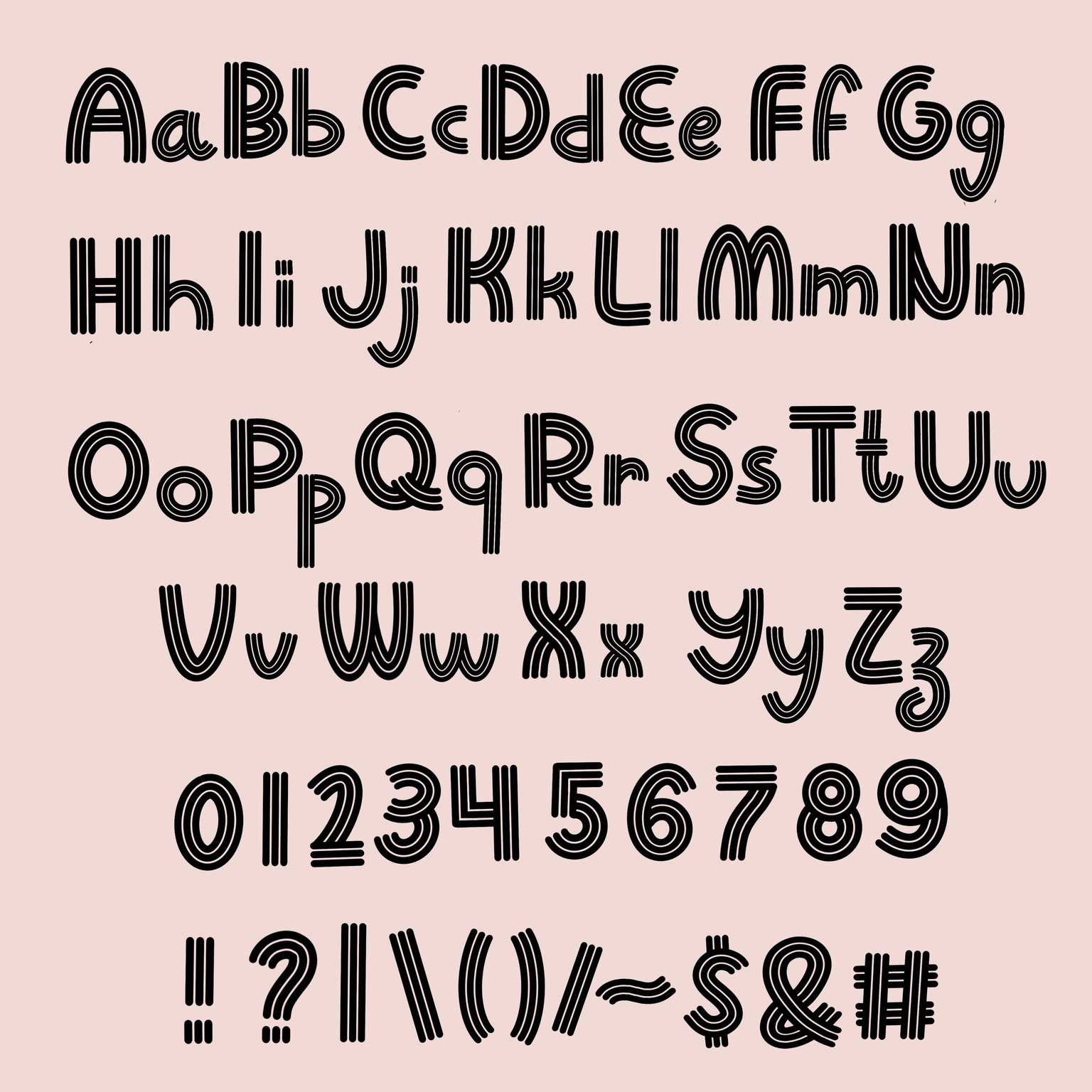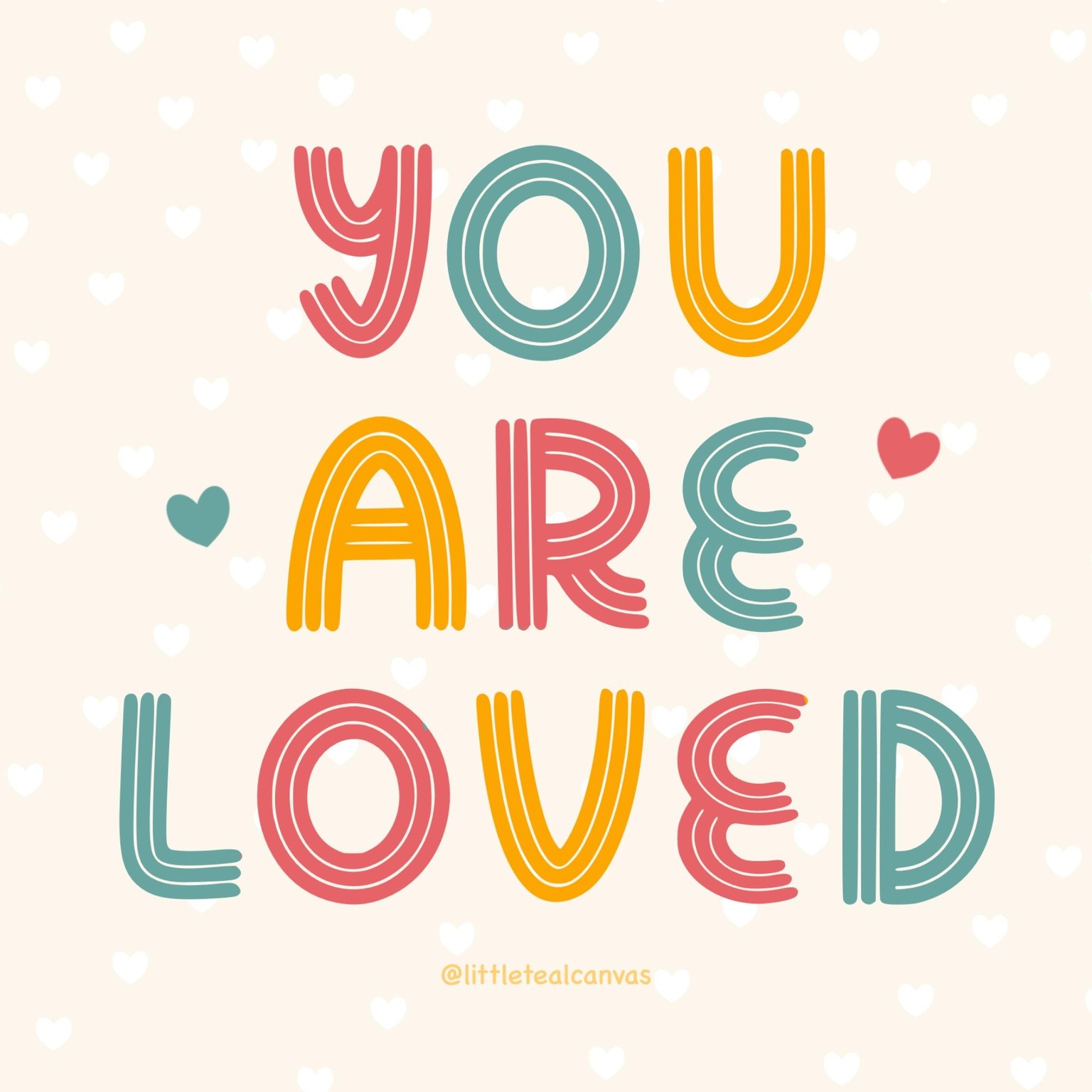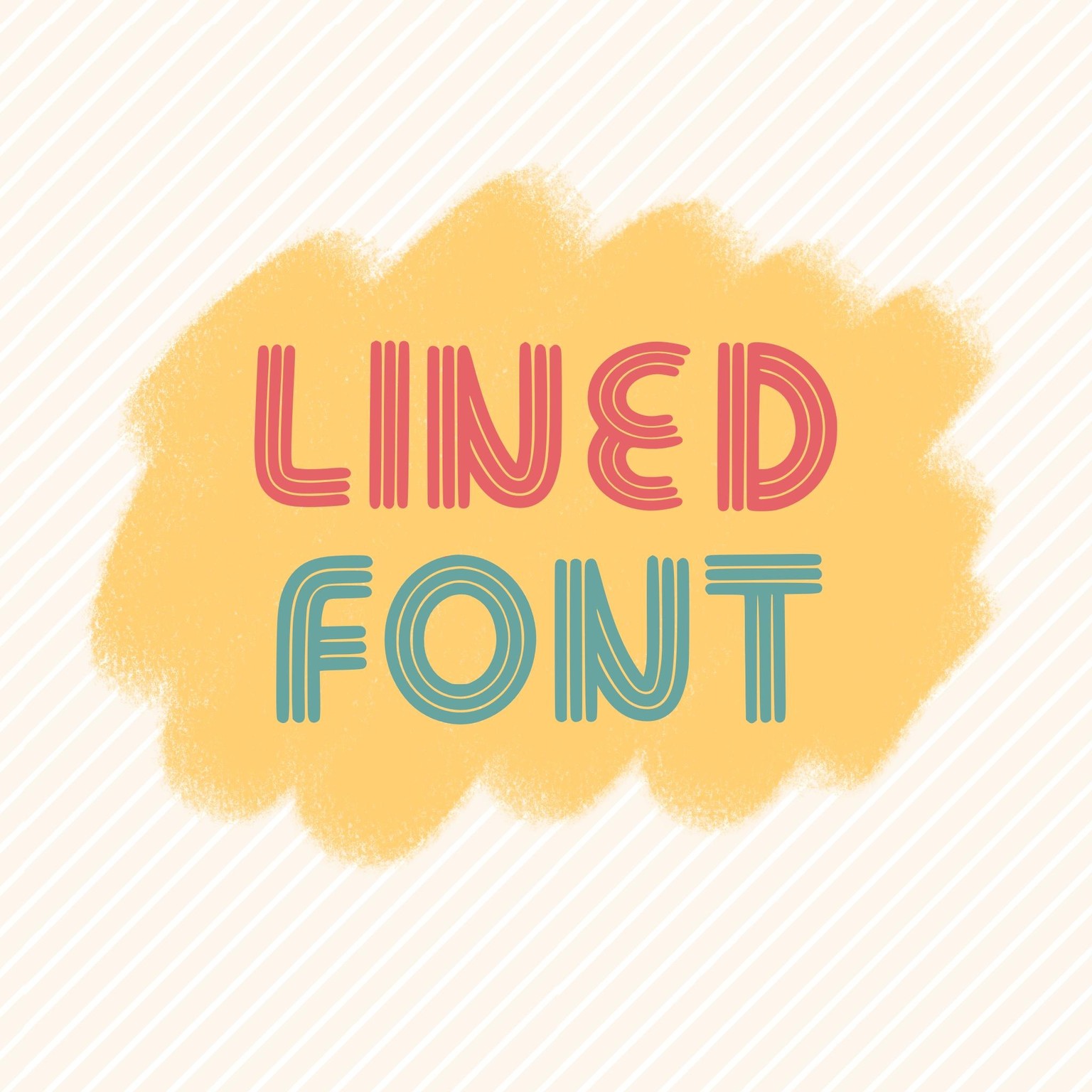
3 lined font
3 lined font - image 1 - student project3 lined font - image 2 - student projectI tried to make a fun font with 3 lines using a brush I created. It took forever to get the curves right but I’m pleased with the outcome and can’t wait to use it more!!!